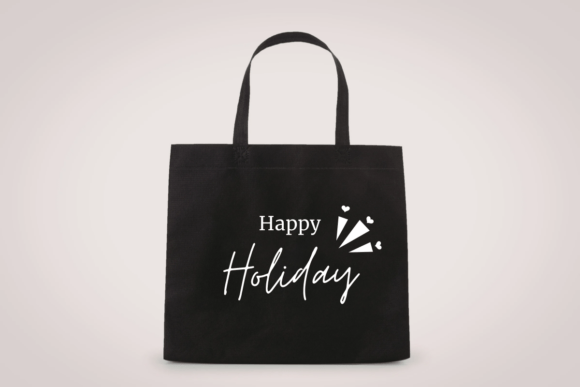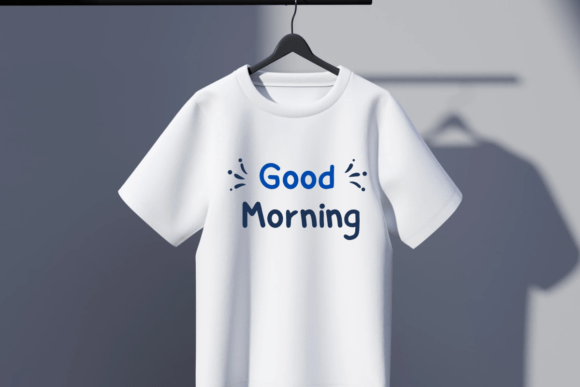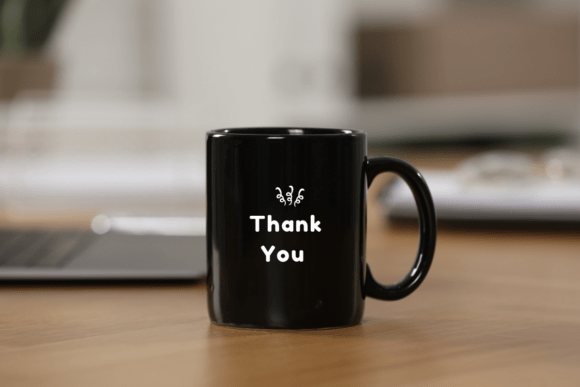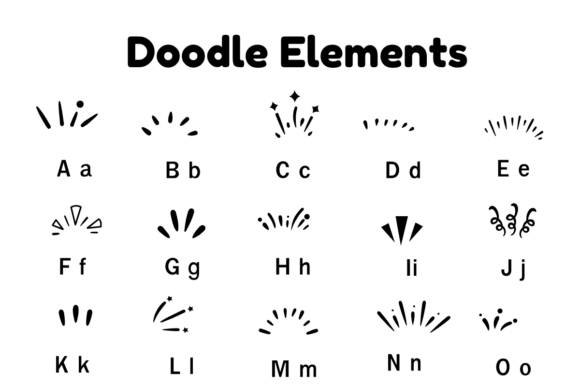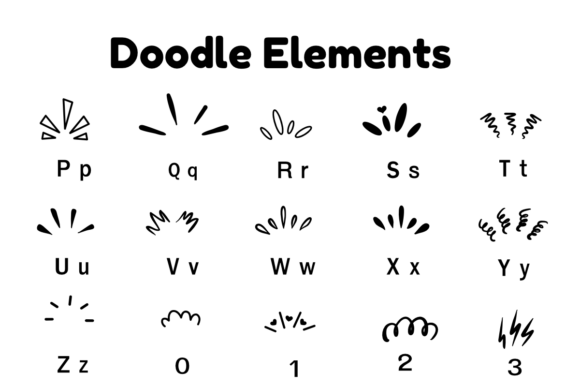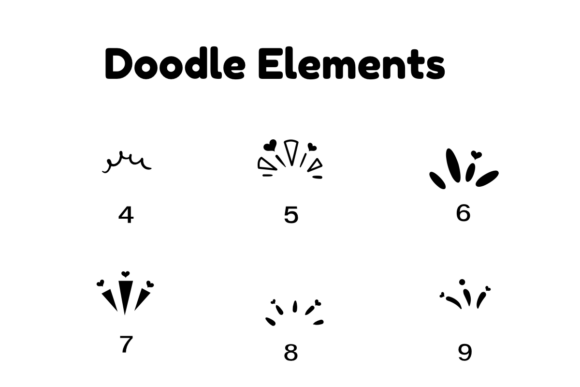
The Doodle Elements Font: A Sketchy Friend for Your Creative Projects
I’ll never forget the time I was working on a wedding invitation design for a dear friend. I had the perfect layout, the ideal color palette, and a clear vision of what I wanted to achieve. However, I was struggling to find the right font to bring it all together. That’s when I stumbled upon the Doodle Elements font, and it was love at first sight! 💕
This dingbats font with a sketch style theme has been a game-changer for my creative projects, and I’m excited to share its awesomeness with you. Whether you’re a designer, crafter, or creative hobbyist, Doodle Elements can add a touch of personality and whimsy to your work.
- Unique and quirky design that’s perfect for creative projects ✅
- High-quality, scalable vector graphics that look great in any size ✨
- Extensive character set with plenty of glyphs and stylistic alternates to play with 🤩
- Works beautifully for a variety of applications, from wedding invitations to logos and decorations 🎉
- Some characters may require manual kerning for optimal spacing ⚠️
- Limited language support, mainly focused on English and Western European languages 📚
- May not be the best fit for very formal or traditional designs, as it’s quite playful 😊
The creator of Doodle Elements, a talented designer with a passion for hand-drawn illustrations, was inspired by the art of doodling. They wanted to capture the essence of sketching and bring it to the digital world. The result is a font that’s both playful and versatile.
Q: What type of projects can I use Doodle Elements for?
A: Doodle Elements is perfect for a variety of creative projects, including wedding invitations, DIY crafts, decorations, logos, and more!